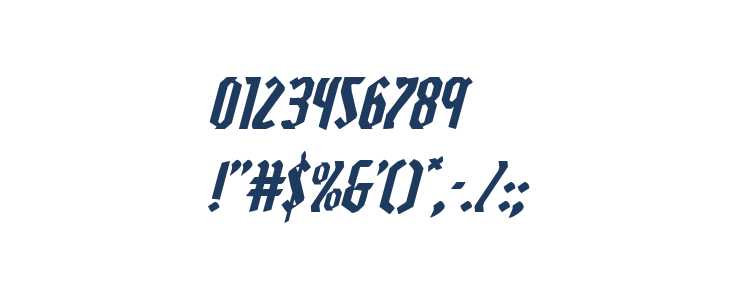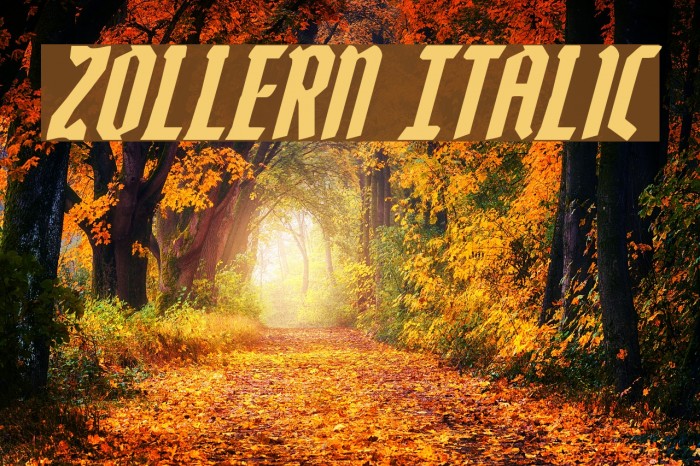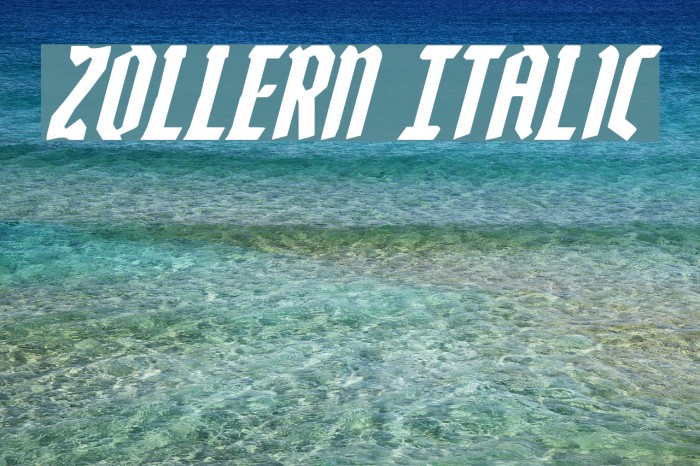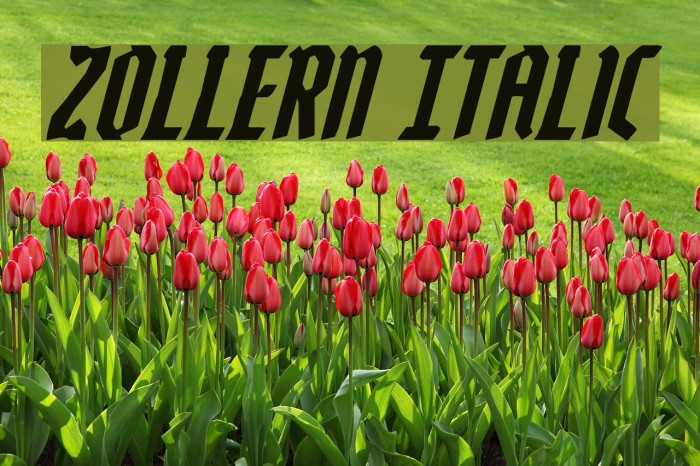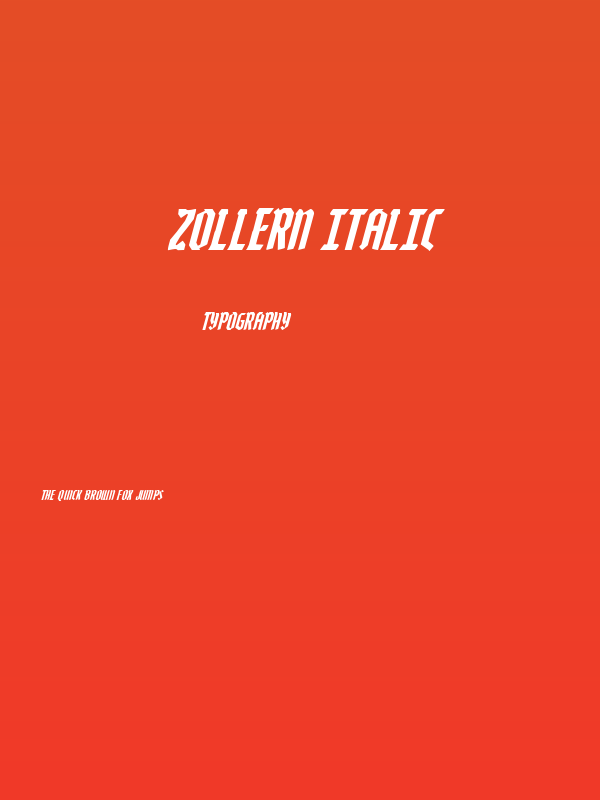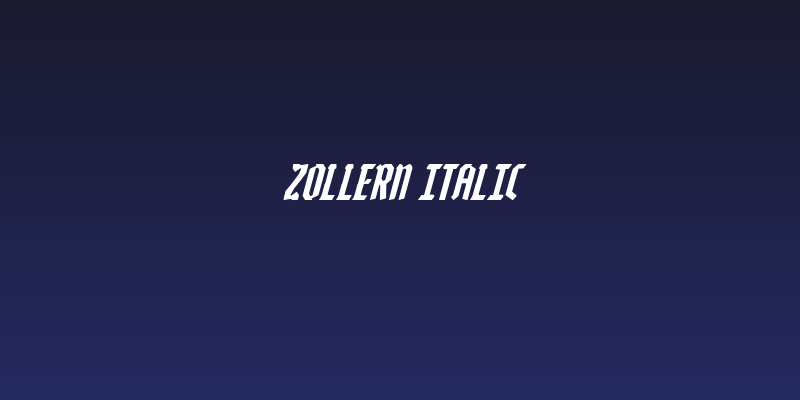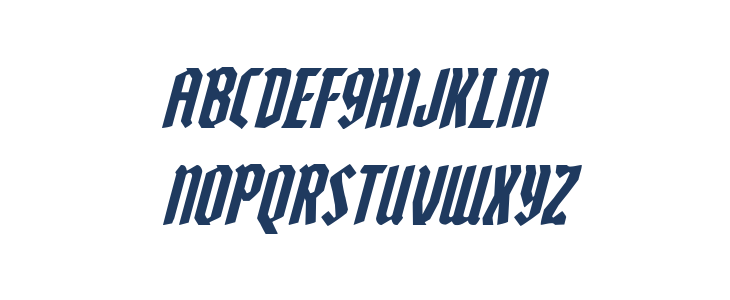
Zollern Italic Font
Zollern Italic Description
This font features a bold and dynamic design with a strong emphasis on angular lines and sharp edges. The characters are italicized, giving them a forward-leaning posture that suggests movement and energy. The uppercase letters are particularly striking, with a distinctive geometric style that makes them stand out. The lowercase letters maintain the same angular aesthetic, ensuring consistency across the typeface. Numbers and special characters are designed to match the bold and assertive style of the alphabet, making this font suitable for attention-grabbing applications.